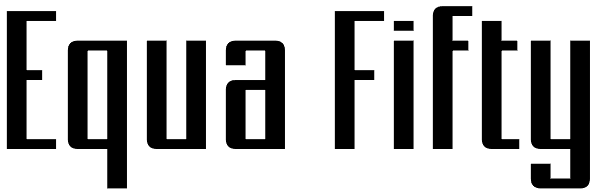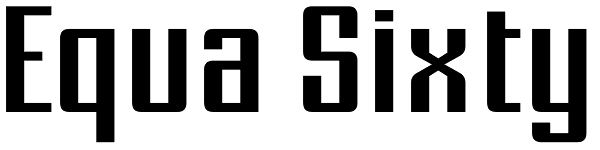
Equa
Equa is a font based on strict grid rules. The name "Equa" comes from the equal widths of the vertical strokes, inner spaces and counters and spaces between glyphs. Its geometric construction gives it a technical look with an art deco sensibility. A...